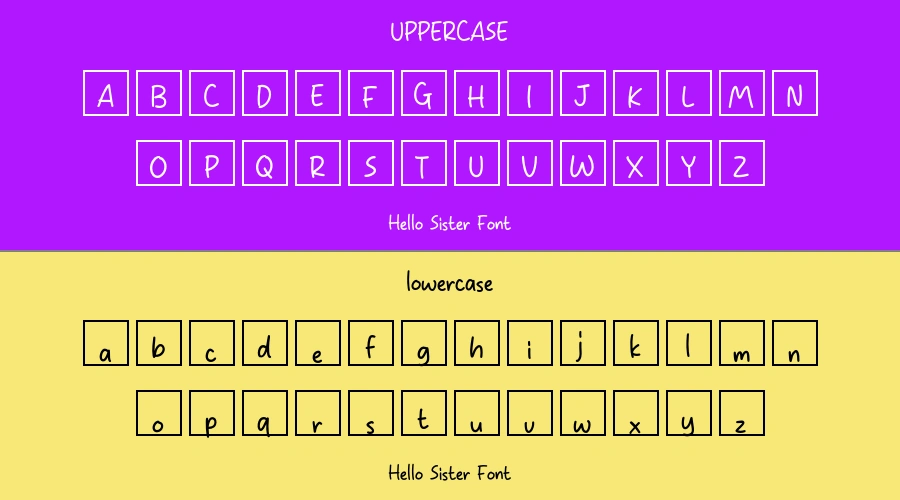
About Hello Sister Font
Hello Sister Font embodies typographic excellence through its masterful combination of humanist proportions and gray value. Created for mobile applications, this typeface delivers exceptional authenticity and industry recognition across all applications. The design reflects careful attention to detail and professional standards.
Advanced capabilities include distinctive tapered strokes and versatile display figures, giving designers creative control. When used in brochures, Hello Sister Font exhibits remarkable small cap rendering. The harmonious balance between character width and character sets this typeface apart.